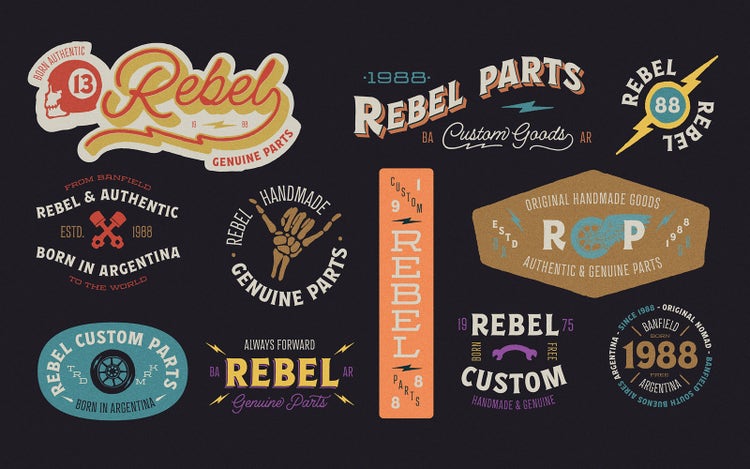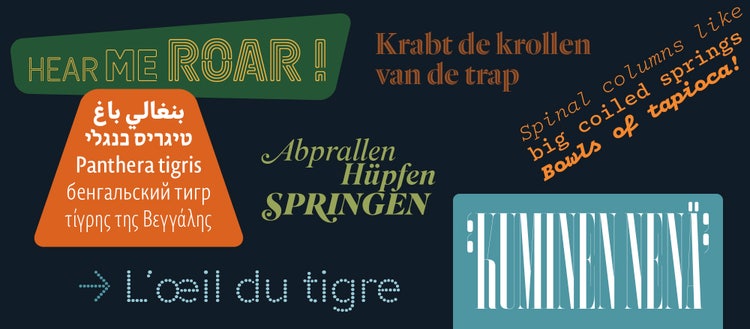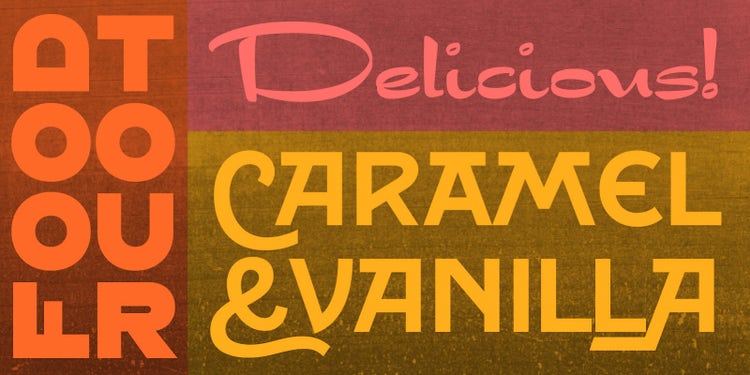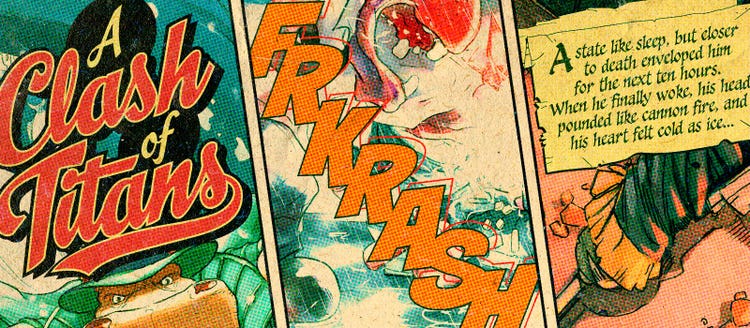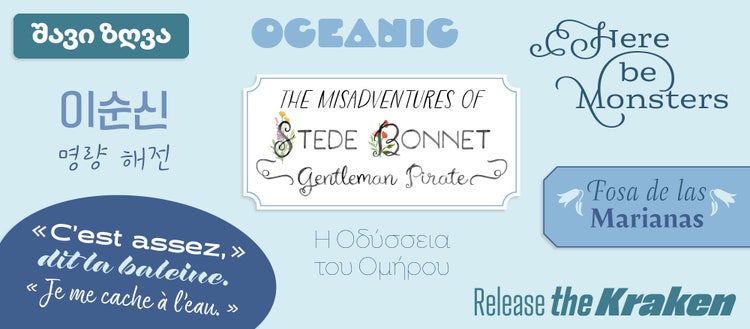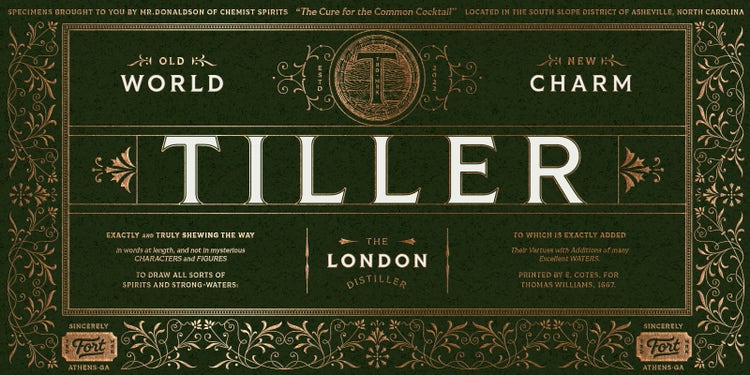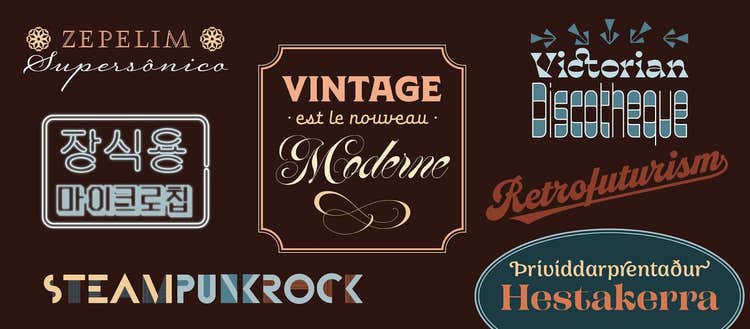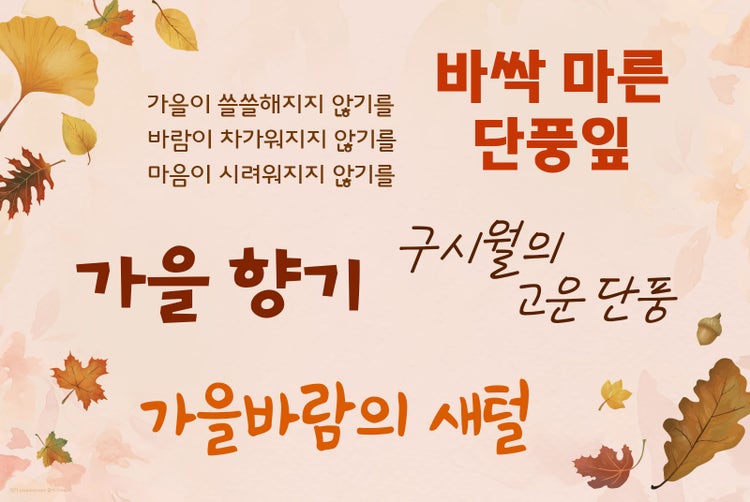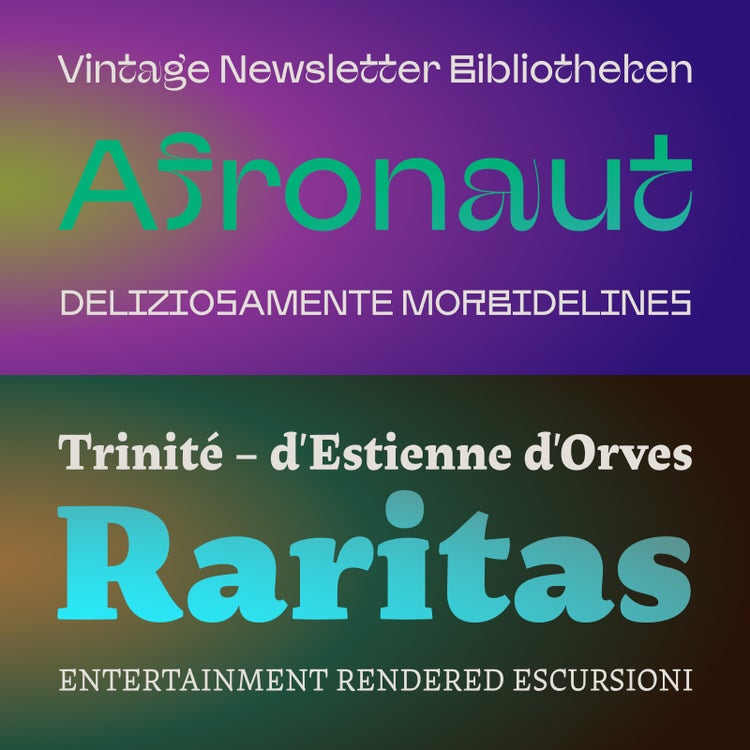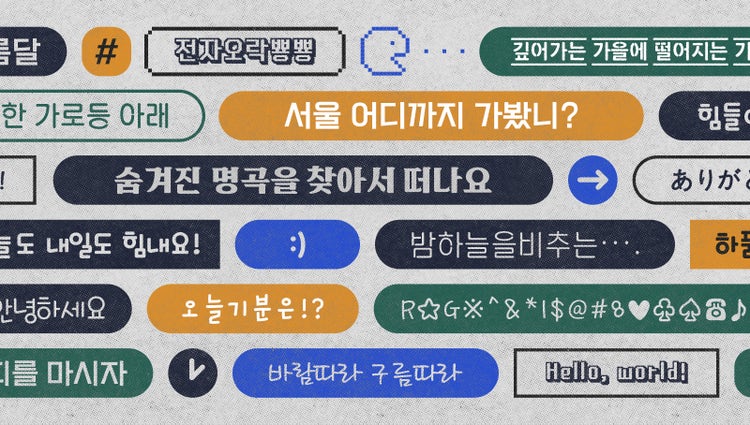
Your Adobe Creative Cloud subscription is bursting like a holiday roast with new fonts and features. You can now easily create standout content right from any font detail page in Adobe Fonts using Adobe Express, including social content, flyers, banners, and more. Need some more visual inspiration? Explore seasonal typographic templates from the homepage of Adobe Fonts. And recent additions to the library means hundreds of new fonts to play with! Read on to discover new typographic stylings that will rejuvenate your designs.
New work from Italy
All of the offerings in Zetafonts’ first batch on Adobe Fonts support Latin and Cyrillic. A Day Without Sun, Bimbo Pro, and Anaphora Stencil support Greek too.
Founded in 2001 by Francesco Canovaro, Debora Manetti, and Cosimo Lorenzo Pancini, Zetafonts is an independent type foundry based in Florence, Italy.
The narrow sans A Day Without Sun and the connected script Bimbo Pro were handwritten with a fine marker, giving them a casual appearance. Written with a textured brush, Adlery Pro is purposeful and energetic. The bouncy interlocking characters of DoubleBass recall the jazzy posters, title sequences, and album covers of the fifties.
Anaphora Stencil’s cut-up letterforms are visually arresting. Use the Extrabold and Fat weights to create provocative stencils for signs and posters. True to its Italian roots, Blackest is a striking serif face with reversed contrast: the horizontal parts are thicker than the verticals. Tarif and Tarif Arabic are drawn according to the same principles but are more subdued, making them a daring option for text.
Legendary faces
There is so much more to Verdana and Georgia than the familiar basic system fonts.
Carter & Cone offers typefaces by legendary type designer Matthew Carter. Discover the typographic richness of Georgia Pro and Verdana Pro, which go far beyond the system fonts you may be used to. For Sophia and Mantinia, Carter found inspiration in majestic stone-carved letters from ancient Greece and Rome. Big Caslon FB and Big Moore are contemporary interpretations of foundational typefaces from the eighteenth century. As their names suggest: set ’em big!
Miller comes in a wide range of optical sizes — Miller Text, Headline, Display, and Banner — resulting in an all-in-one superfamily for publications. Carter designed many custom type families, now available to the public, for venerable newspapers and magazines: Stilson for The Washington Post, Rocky for the Rocky Mountain News, and Roster for Sports Illustrated. Effortlessly tackle even the most demanding editorial projects with these versatile type systems.
More Korean type
Two Korean foundries have expanded their offerings on Adobe Fonts.
DX Korea’s new styles range from clean and versatile to warm and relaxed.
DX Korea has added five more typefaces to Adobe Fonts. DX Ivy Std’s and DX Exptrn Std’s clean shapes are perfect for any situation calling for unobtrusive, clear typography. Thanks to its subtly irregular strokes, DX Spaceflight Std looks casual and upbeat. DX Together Std was handwritten with a pen and DX Ipsaebrm Std with a felt tip marker. This gives both families a relaxed, human feel.
There’s something for everyone in RixFont’s new additions to Adobe Creative Cloud.
Ten new typefaces have joined RixFont’s collection on Adobe Fonts. Inspired by N Seoul Tower’s architecture, Rix Seoul Station combines geometry with beauty. Rix Super Robot’s oblique, shaded shapes project speed and strength. Dive into the exciting nightlife with Rix Neon Sign. The pixelated Rix Video Game recreates the charm of retro 8-bit video games; typing square brackets and underscores makes words set in Rix Stamp look like rubber stamps.
Rix Freestyle looks like quick, legible handwriting. Use Rix Jongno’s vigorous, serifed strokes to emphasize your words. Rix Hello Twenty’s open characters with rounded stroke endings look warm and friendly. Organic shapes lend Rix Freshman a casual feel. Rix Dictation mimics the efforts of a schoolchild forming the characters with care and precision.
Freshen up your fonts
Get your baseball script fix with Mark Simonson’s Dreamboat.
If you’ve ever wondered what serif typeface to pair with Mark Simonson’s uber-popular Proxima Nova or its friendly sibling Proxima Soft, look no further than Proxima Sera. The luscious Dreamboat, a sports script with built-in underlines and swashes, lets you create instant logos and wordmarks.
Forma DJR and Fit have become true polyglots.
David Jonathan Ross takes his type around the world. After Latin Extended, Cyrillic, and Vietnamese, Devanagari, designed by Kimya Gandhi in collaboration with Ross, is the latest script to join the Fit family. The popular sans serif Forma DJR now also supports Cyrillic, Greek, Hebrew, and Thai. DJR goes unapologetically over the top with Megabase, Megavolt and Megazoid, three exuberant party animals ready for the weekend.